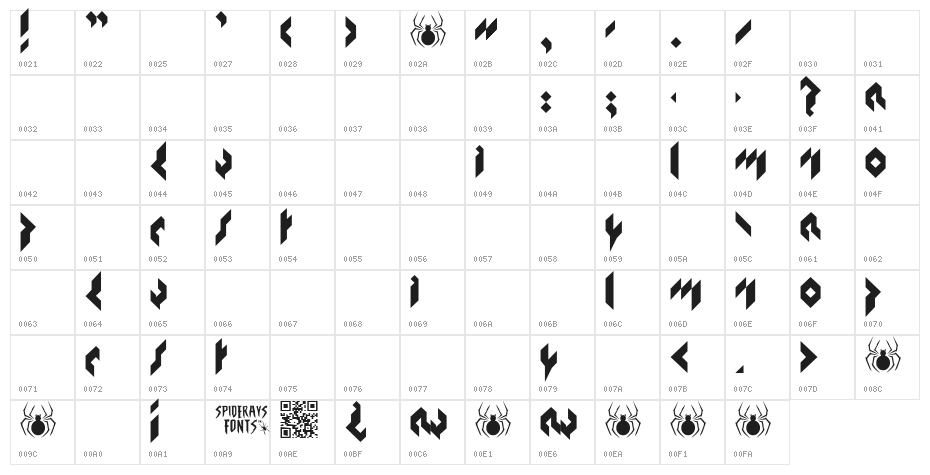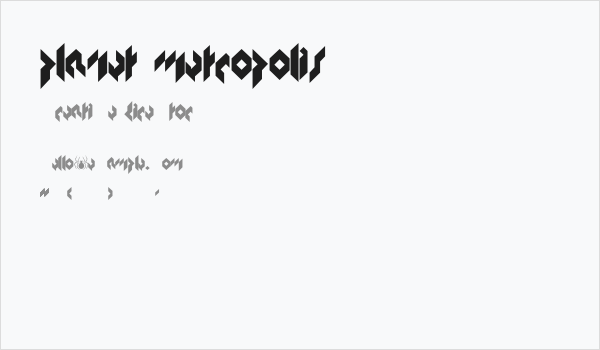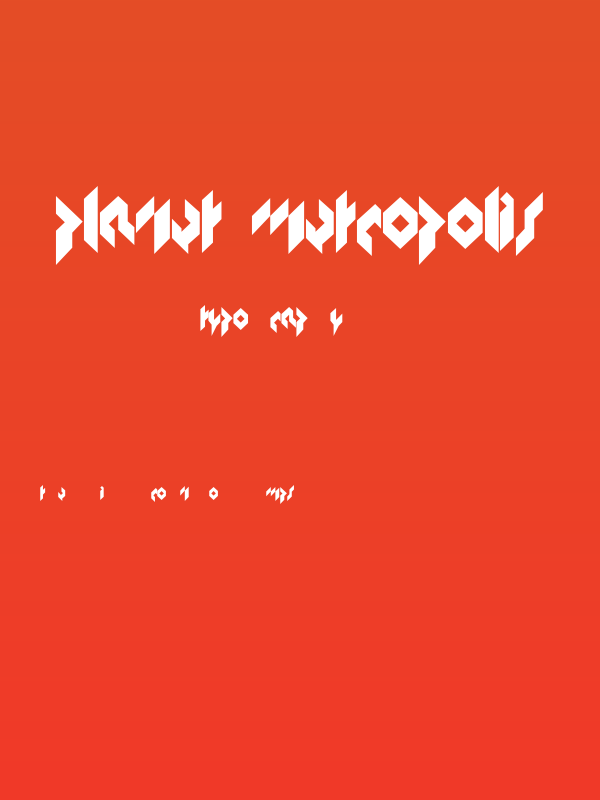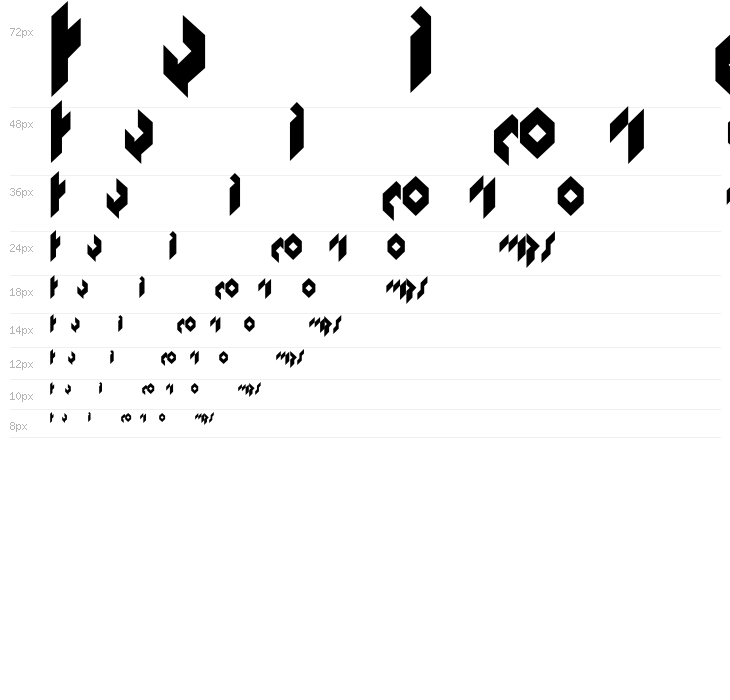
PLANET METROPOLIS Font
PLANET METROPOLIS Description
This font features a bold, futuristic design with sharp, angular lines and geometric shapes. The characters are highly stylized, resembling a blend of digital and mechanical aesthetics, which gives it a unique, sci-fi appearance. The font's structure is reminiscent of architectural elements, with a strong emphasis on vertical and diagonal strokes. The use of negative space is prominent, creating a striking visual impact. Each letter is distinct yet cohesive, contributing to an overall sense of modernity and innovation. The font is ideal for projects that require a bold statement, capturing attention with its unconventional and edgy style.
PLANET METROPOLIS